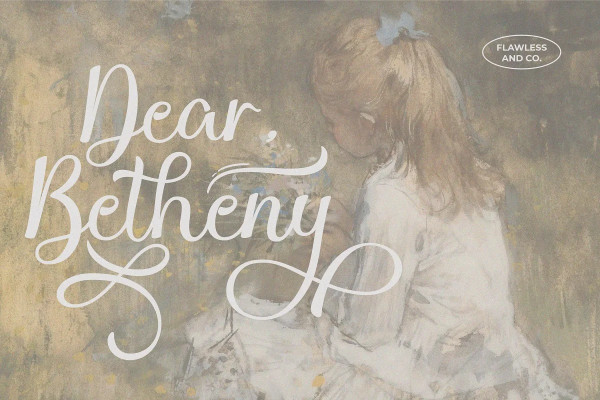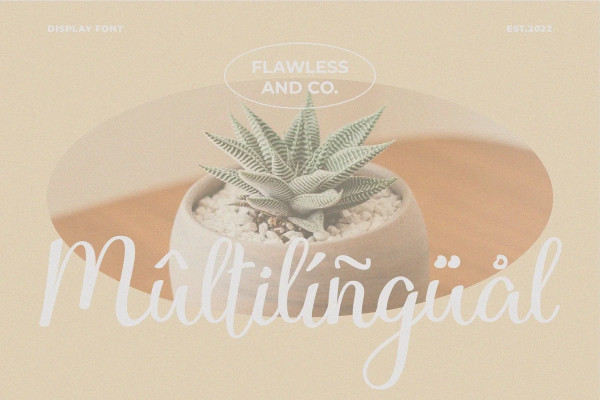
Chatarina Font
Chatarina Font – Script font, our latest creation, modern serif with various alternates and ligatures, multilingual support, an updated blend of bohemian style, suitable for branding, business, logos, magazines, and others